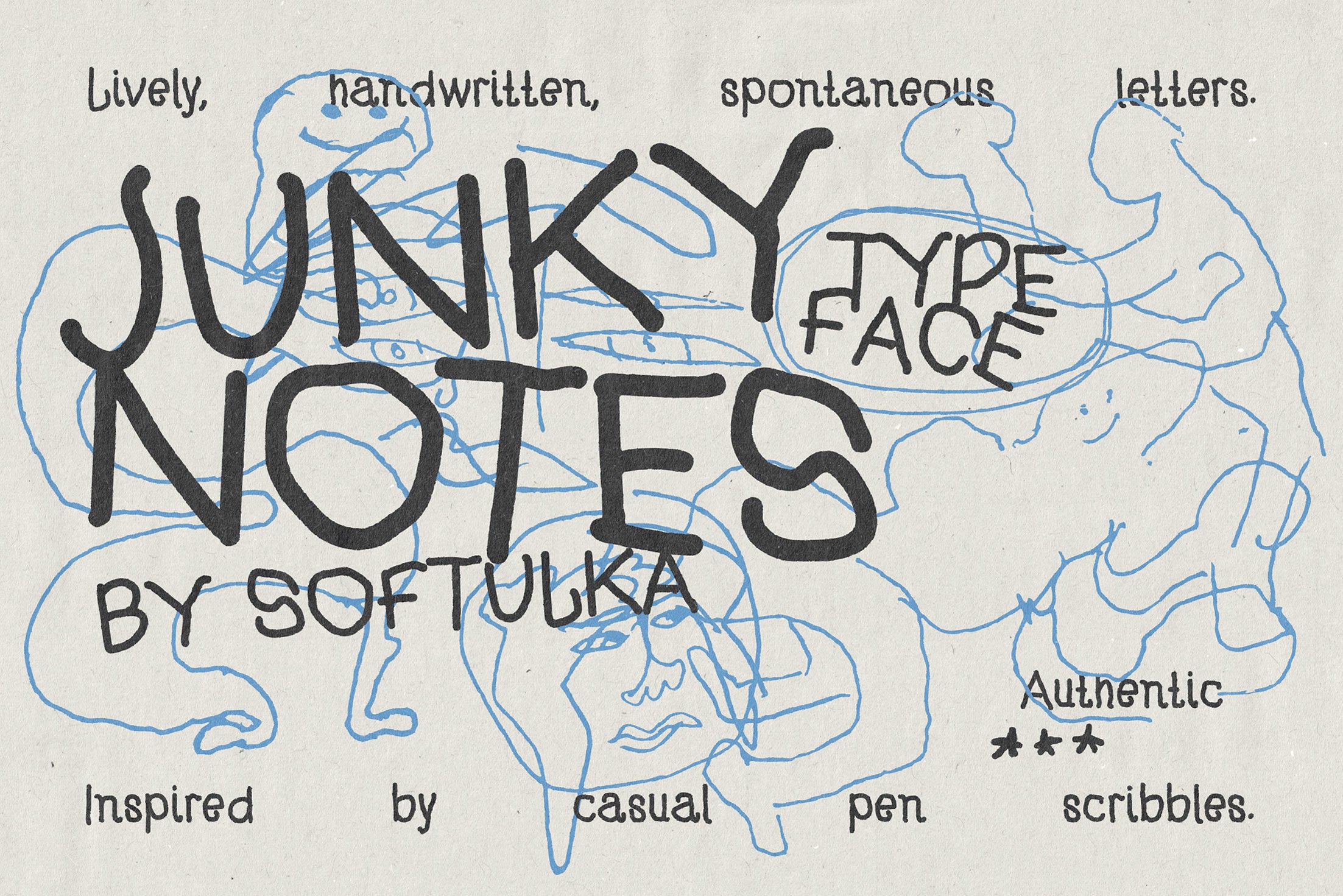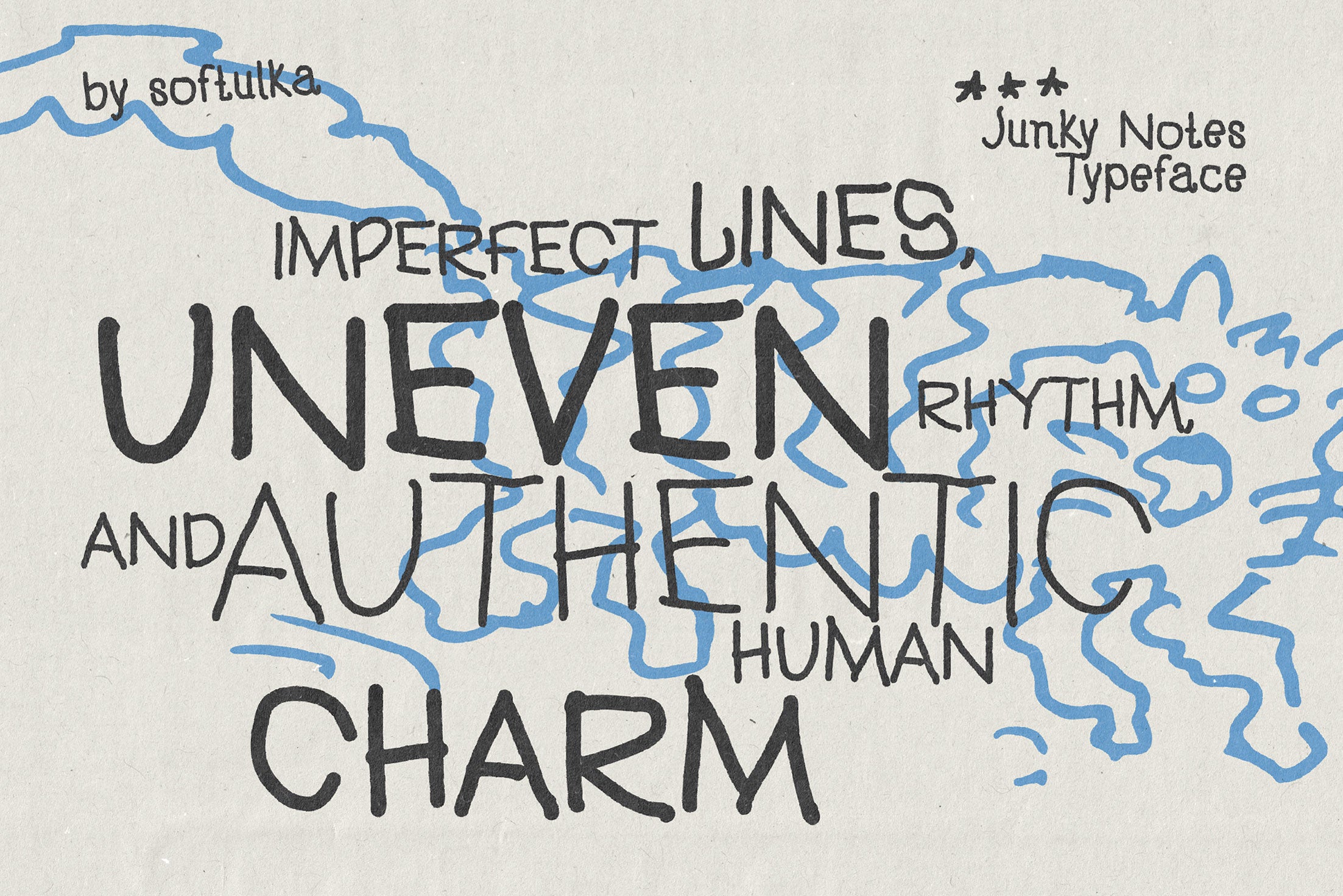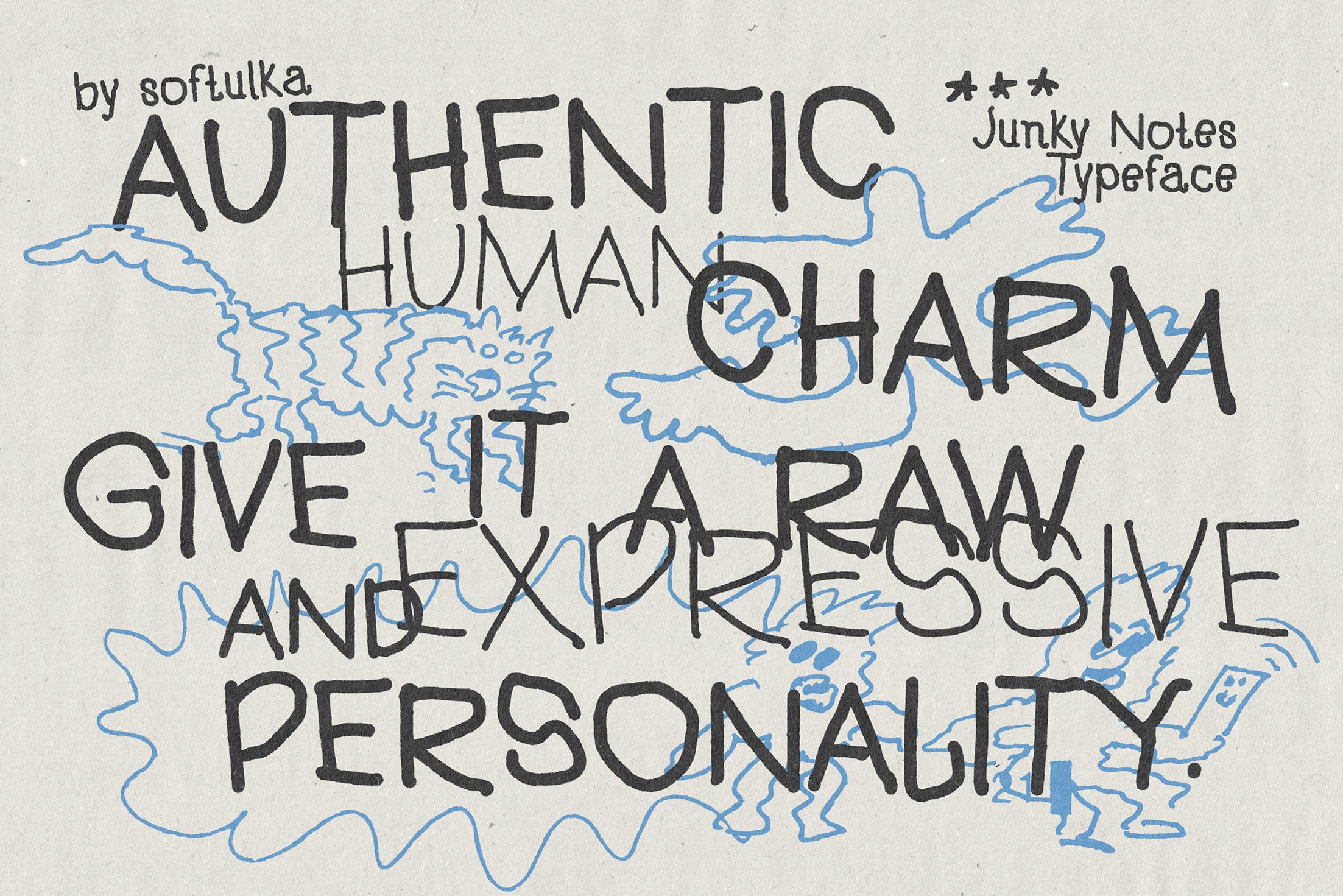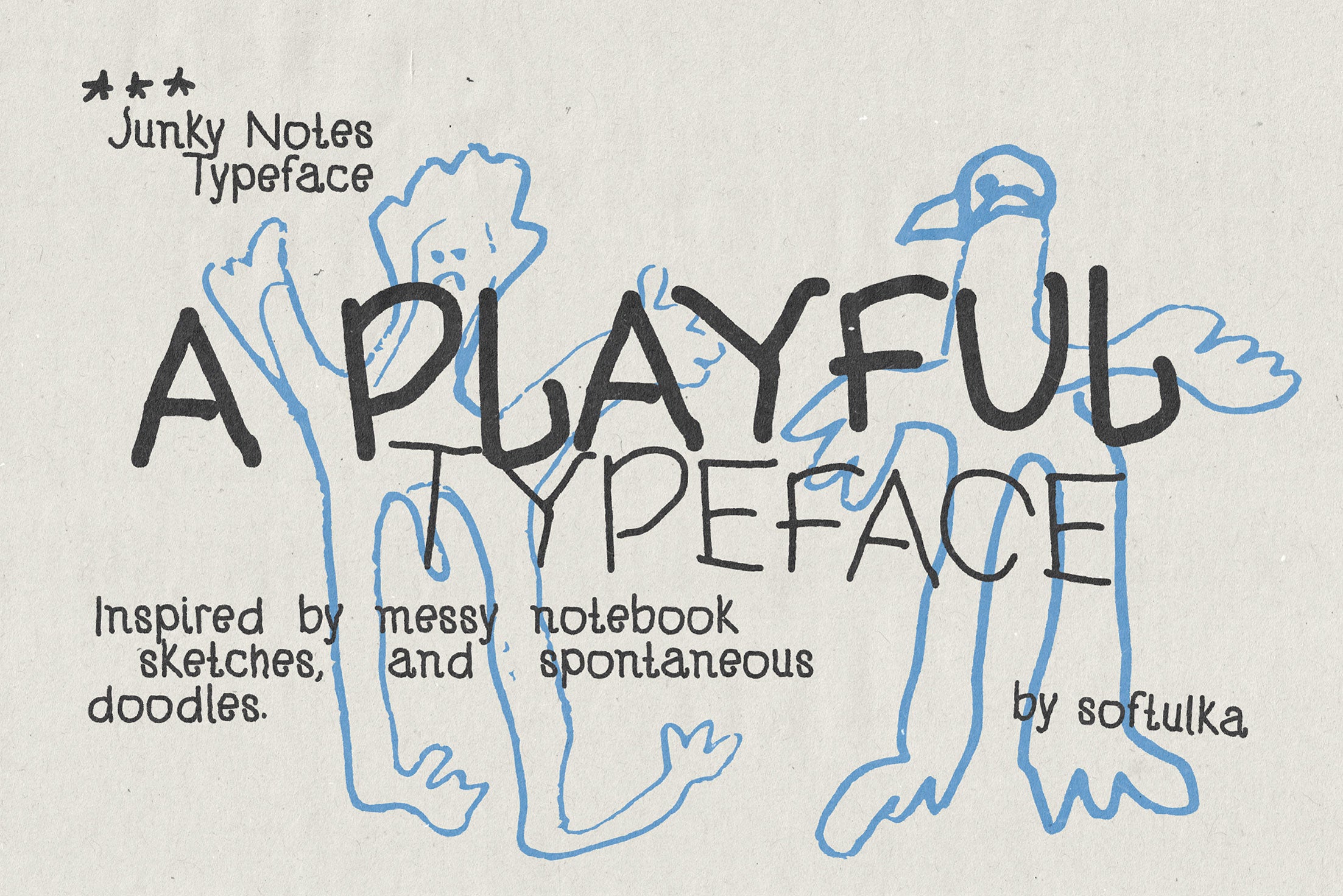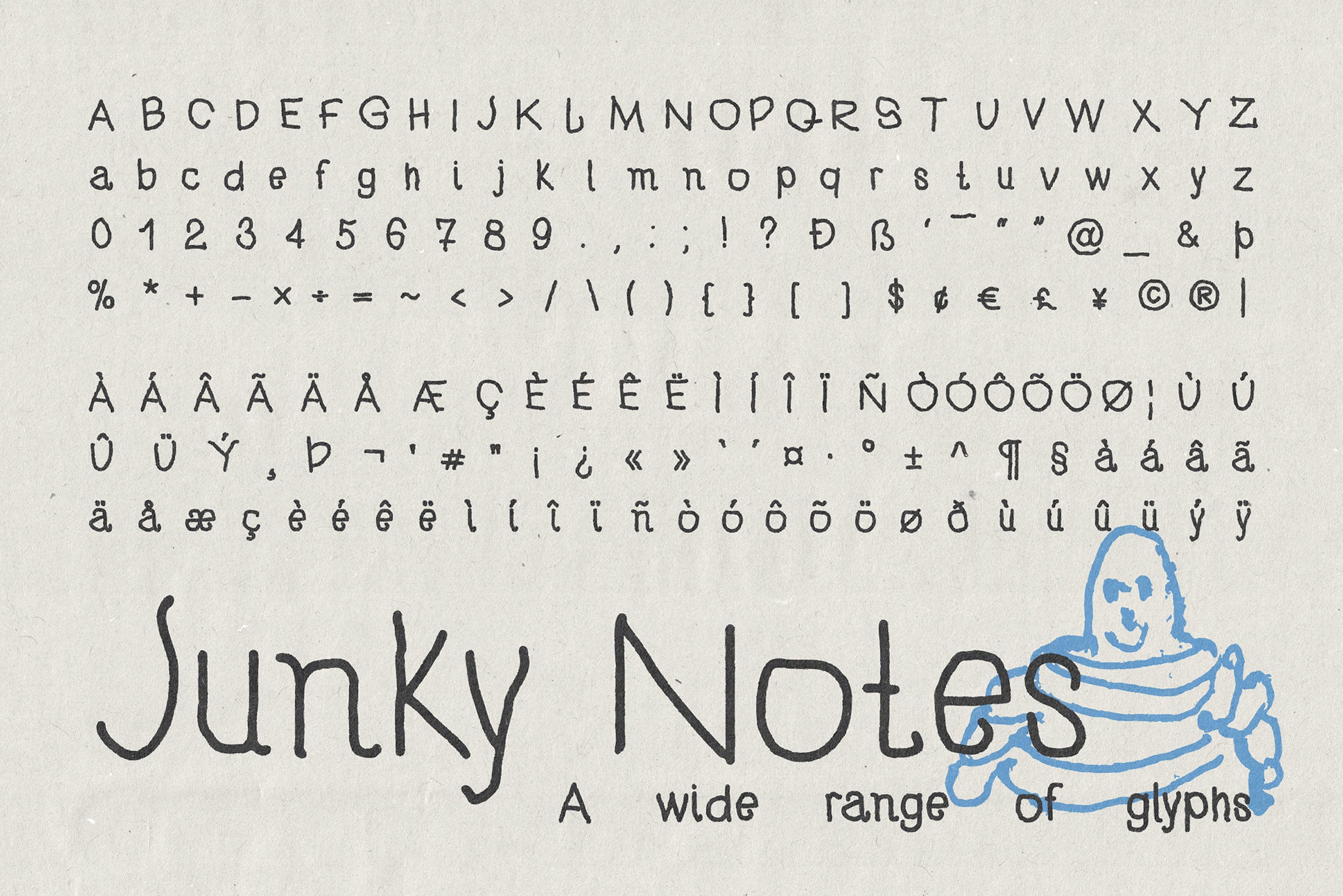
Junky Notes Typeface
Junky Notes is a playful handwritten typeface inspired by the imperfect beauty of notebook margins, quick sketches, spontaneous doodles, and everyday pen scribbles. Designed to capture the energy of ideas in motion, it embraces irregular strokes, uneven spacing, and natural imperfections that make every word feel personal and alive.
Unlike polished script fonts, Junky Notes celebrates authenticity. Its loose rhythm and hand-drawn character create a casual, approachable tone that instantly adds warmth and personality to any design. The result is a typeface that feels as if it was pulled directly from a creative journal, sketchbook, or classroom notebook.
Perfect for posters, branding, packaging, journals, greeting cards, children's projects, merchandise, social media graphics, and creative editorial work. Use it whenever your design needs to feel fun, informal, and genuinely handmade.
• 192 Glyphs
• 2 Styles (Regular, Bold)
• Lowercase
• Diacritics
• Symbols
• Currency
• Mathematics